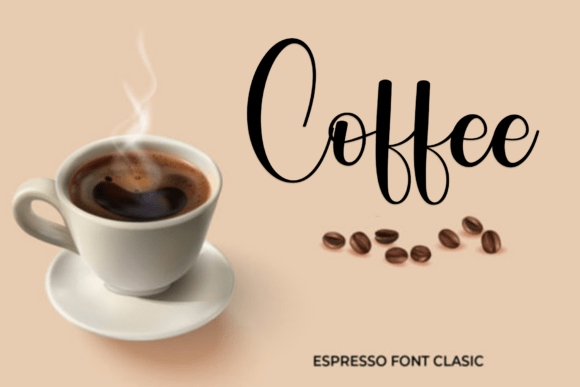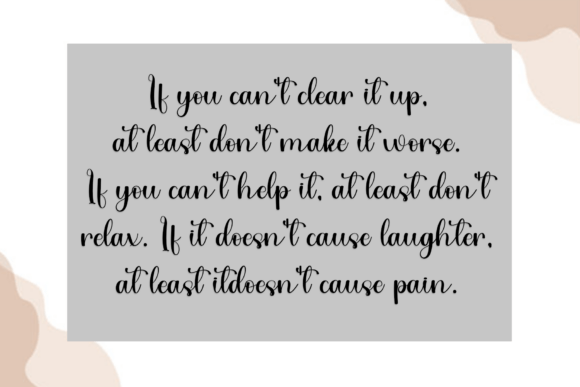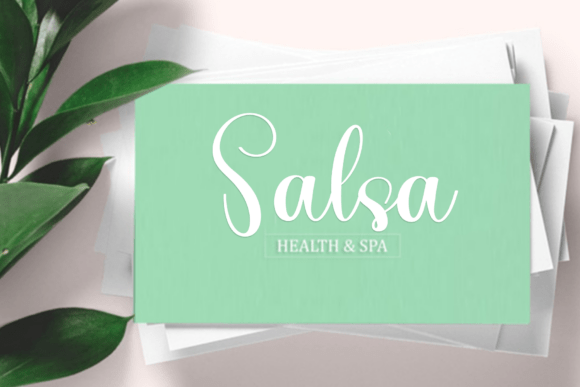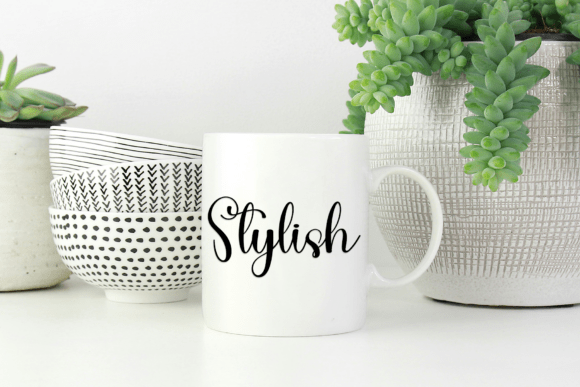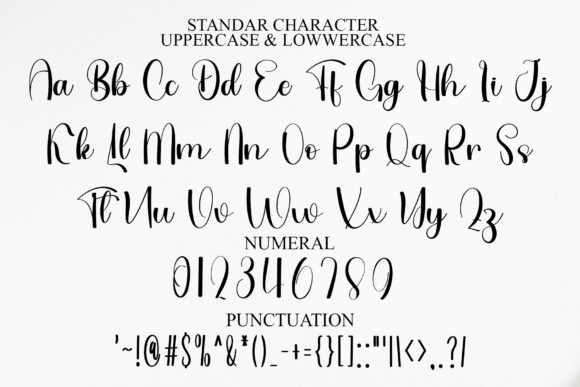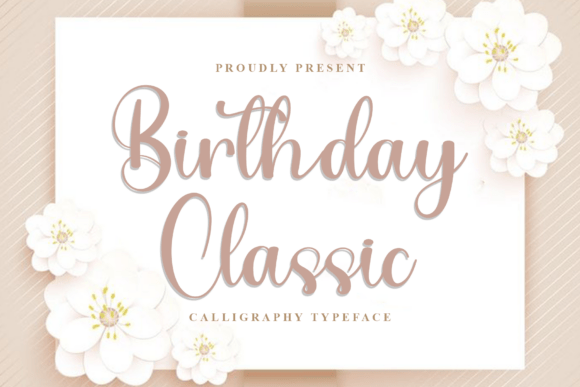
The Timeless Elegance of Birthday Classic Font
Have you ever been working on a design project, and suddenly, you’re stuck on finding the perfect font? I recall a wedding invitation project where I struggled to find a font that exuded elegance and romance. That’s when I stumbled upon Birthday Classic, a calligraphy typeface that has since become a staple in my design toolkit.
A Personal Review of Birthday Classic
• ✅ Upright stance and delicate, looping swashes that give it a soft, romantic visual rhythm
• ✅ Perfect for projects that require a touch of traditional beauty and personal warmth
• ✅ Highly versatile and can be used for various design projects, from wedding invitations to luxury event stationery
• ✅ The font’s fluidity and grace make it a joy to work with
While Birthday Classic is an exceptional font, there are a few minor limitations to consider:
• 🤔 The font’s intricate swashes and looping details can be challenging to read at small sizes
• ⚠️ It may not be the best choice for body text or long-form content due to its elegant, yet elaborate design
3. Experiment with the font’s OpenType features, such as swashes and stylistic alternates, to add a personal touch to your design
3. Experiment with the font’s glyphs, swashes, and stylistic alternates to create a unique and personalized design
The Story Behind Birthday Classic
Birthday Classic was designed with the intention of capturing the essence of a hand-penned letter. The font’s creator aimed to create a typeface that exudes elegance, romance, and sophistication. With its delicate swashes and looping details, Birthday Classic is perfect for designers who want to add a touch of traditional beauty to their projects.
Q: What is Birthday Classic font best used for?
A: Birthday Classic is best used for wedding invitations, greeting cards, feminine branding, and luxury event stationery.
Q: Can I use Birthday Classic for body text?
A: While Birthday Classic is an elegant font, it’s not ideal for body text due to its intricate design. It’s best used for headlines, titles, or short-form content.
Q: Does Birthday Classic support OpenType features?
A: Yes, Birthday Classic supports OpenType features, including swashes, stylistic alternates, and glyphs.